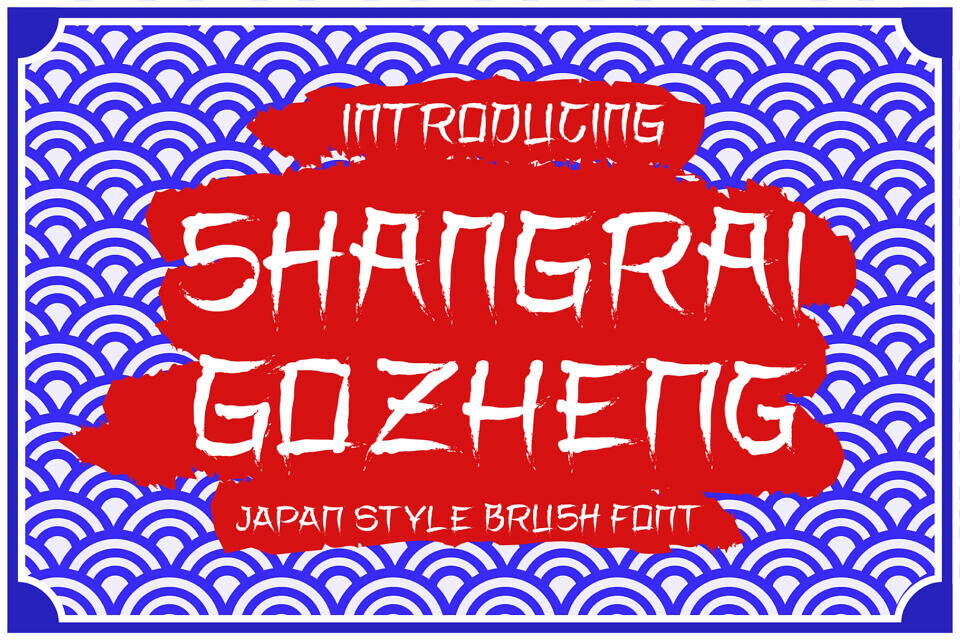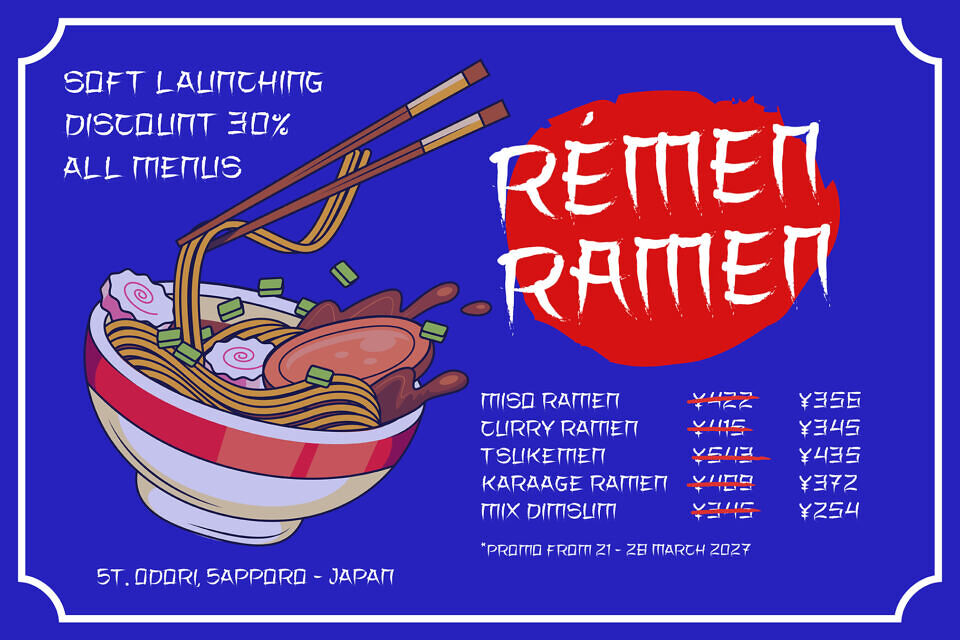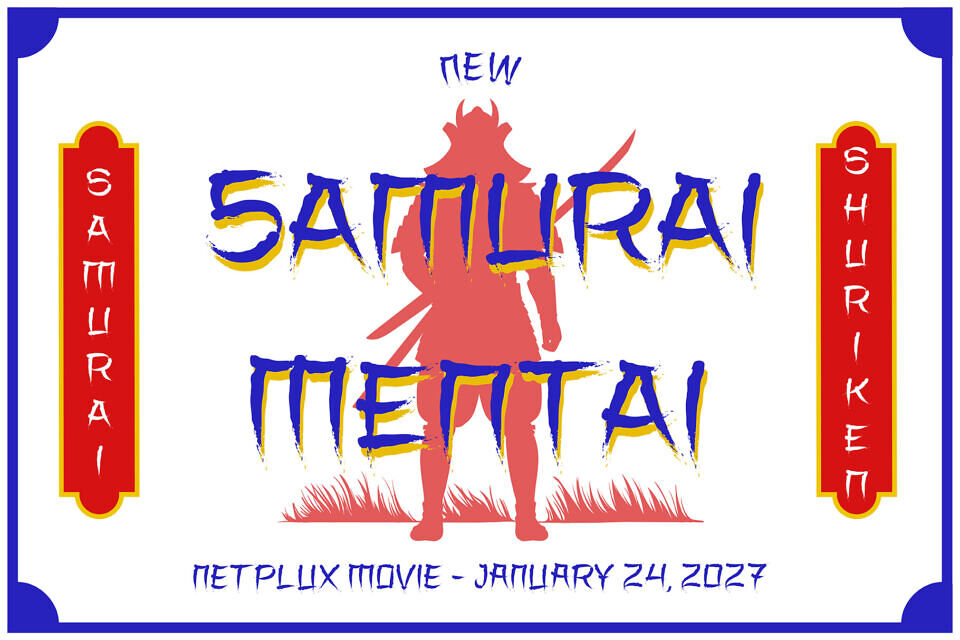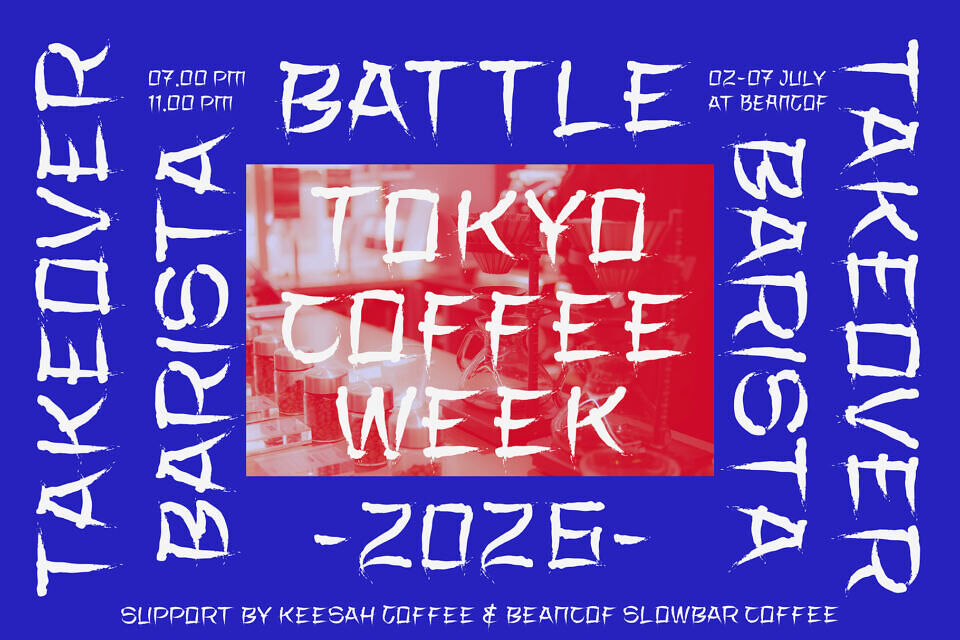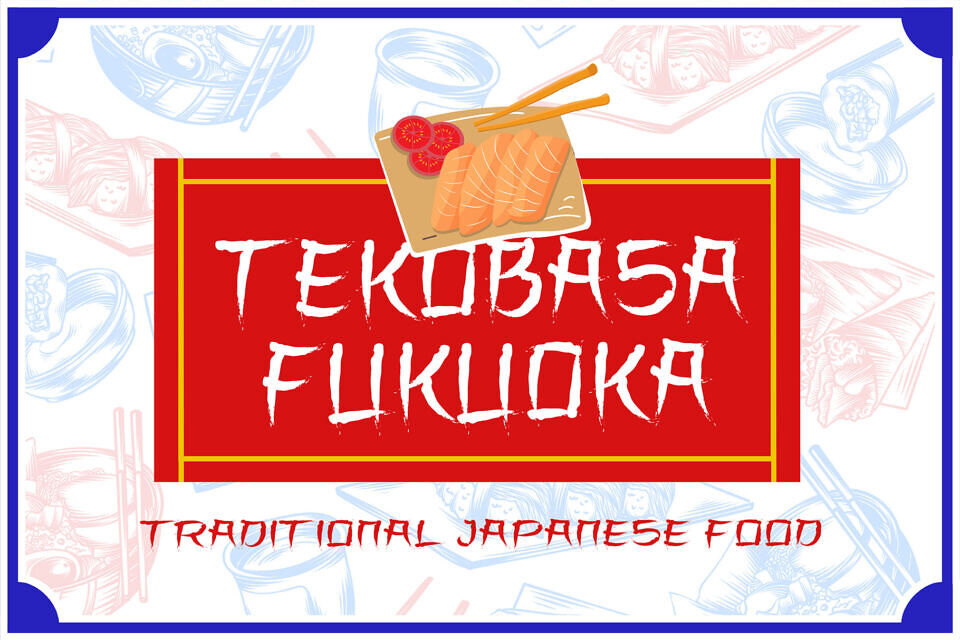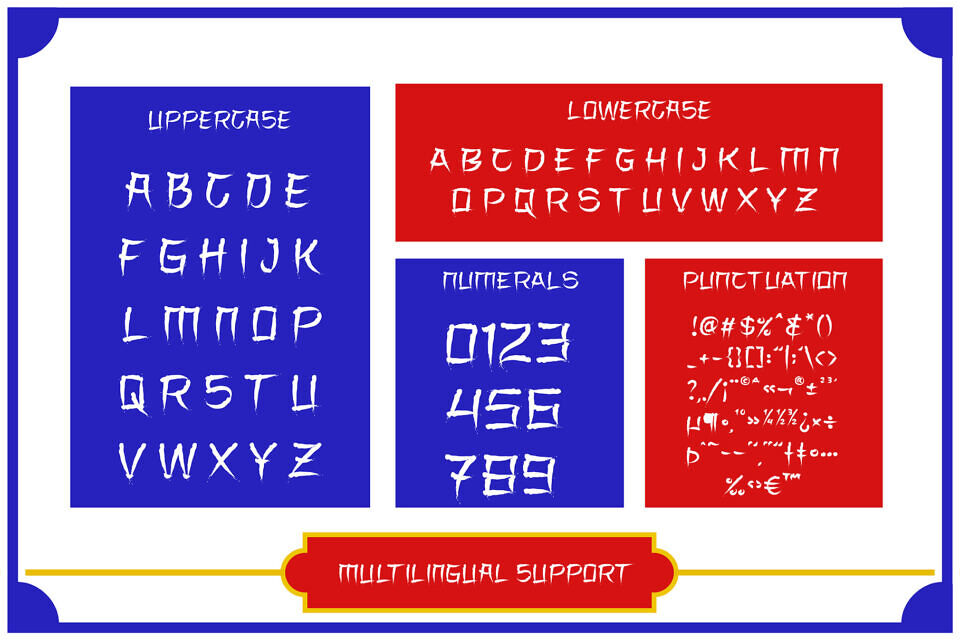
Shangrai Gozheng – Japan Style Brush Font is a striking typeface inspired by authentic Japanese calligraphy and traditional brush-stroke aesthetics. Designed to bring the raw energy of hand-painted lettering into modern digital work, this font offers expressive strokes, organic textures, and a bold cultural presence.